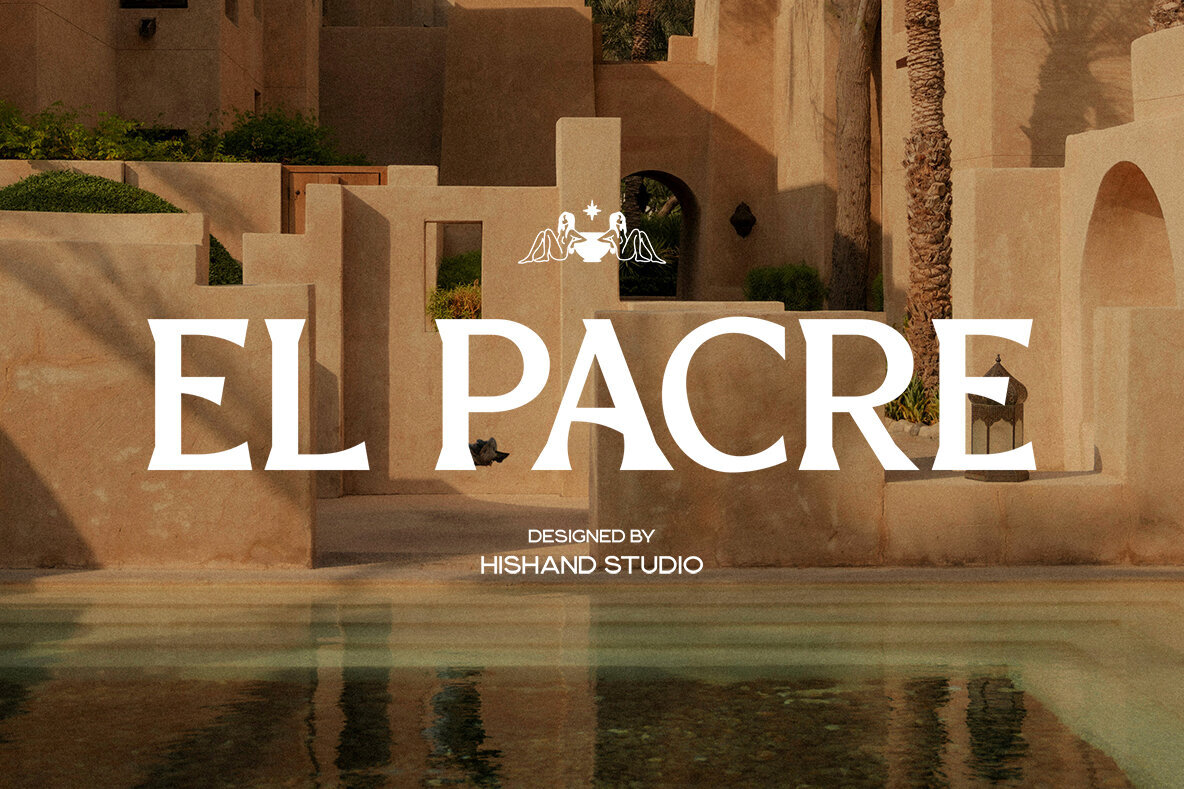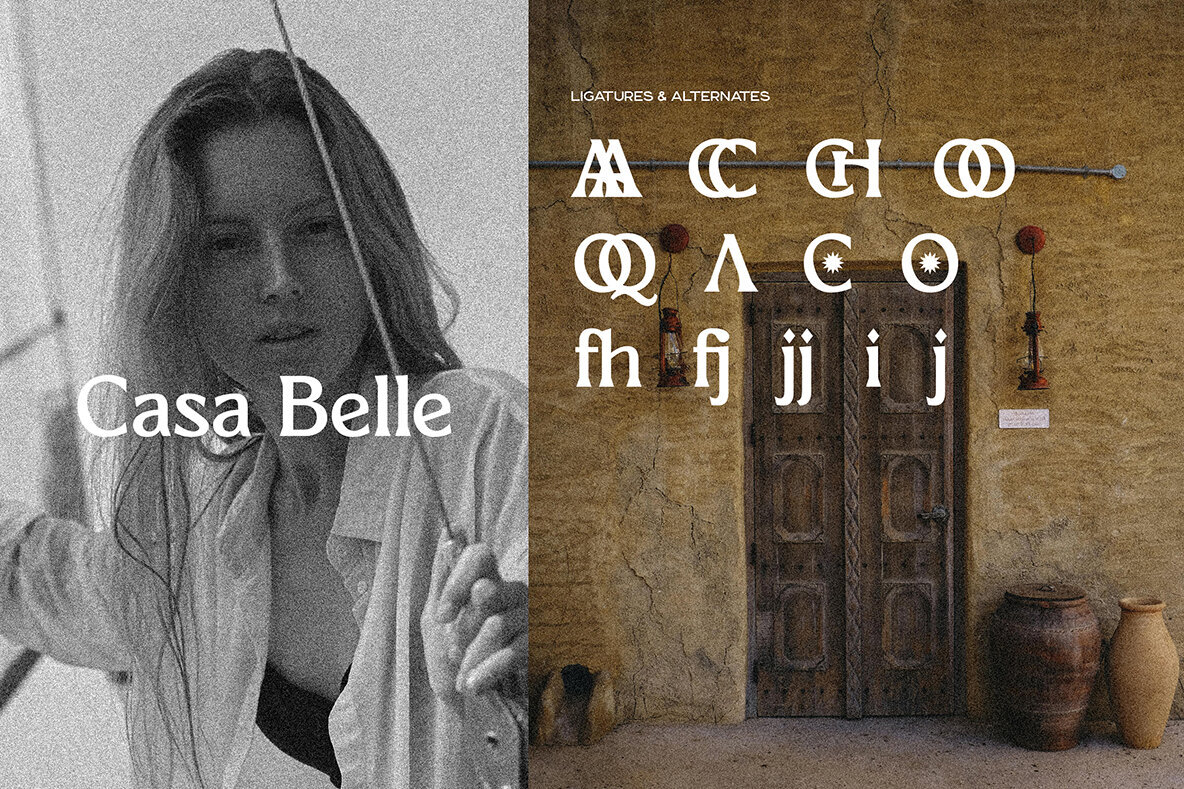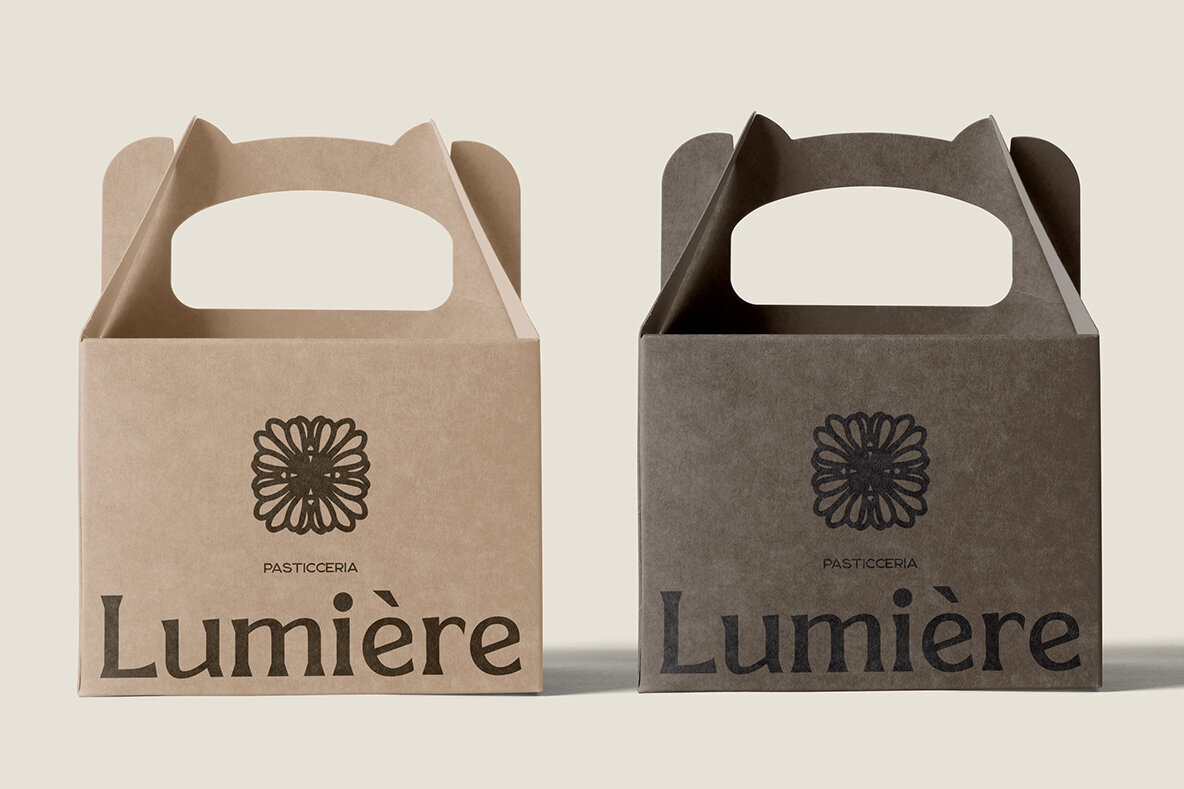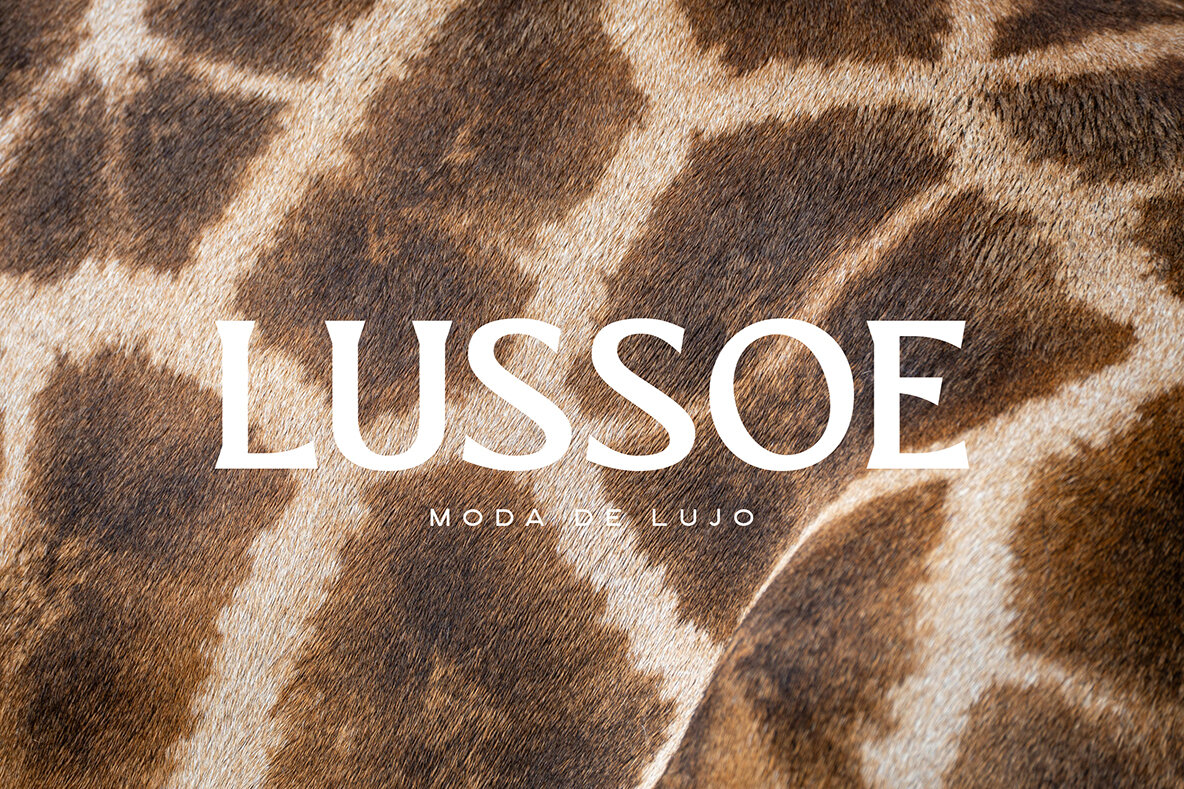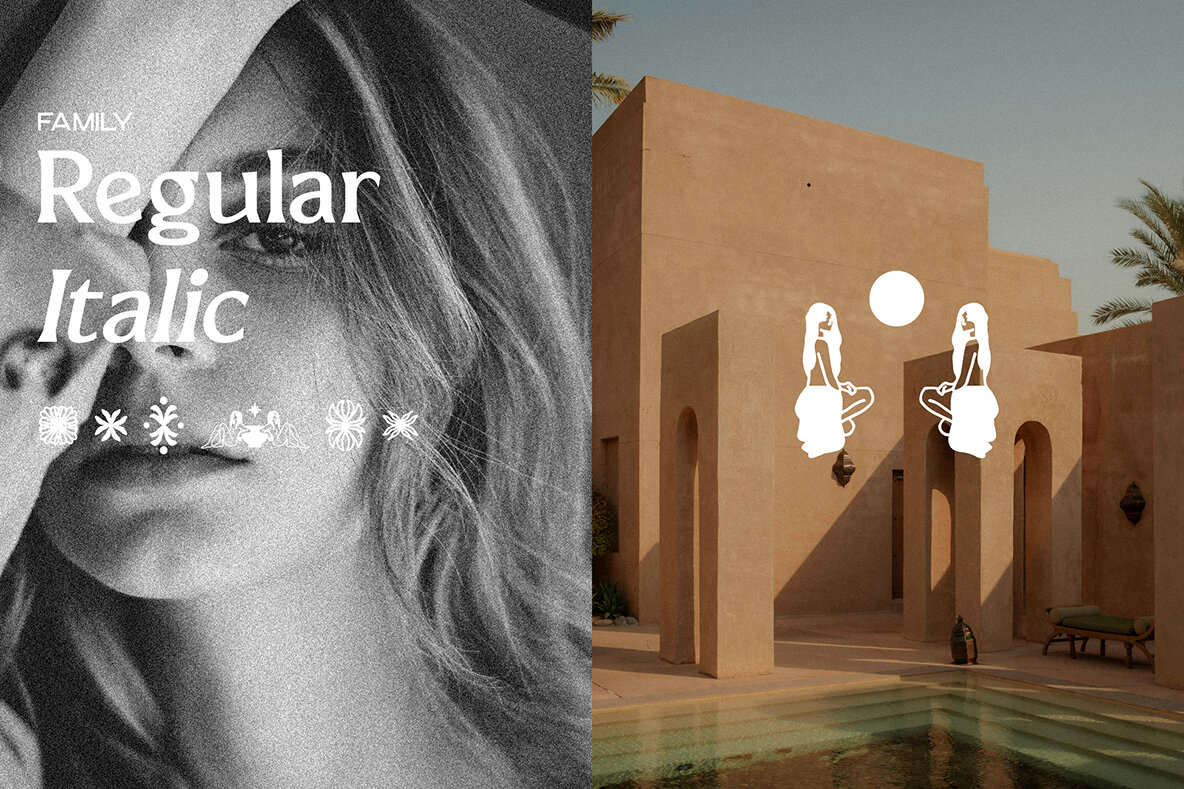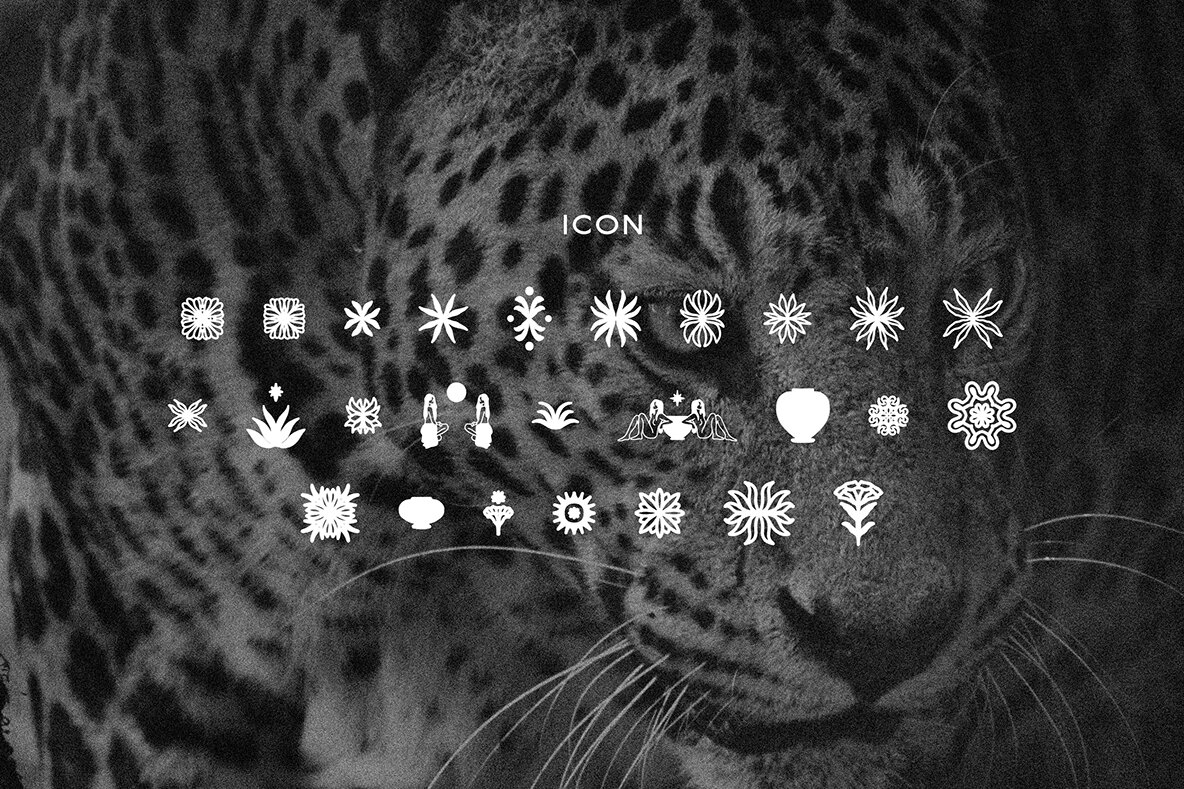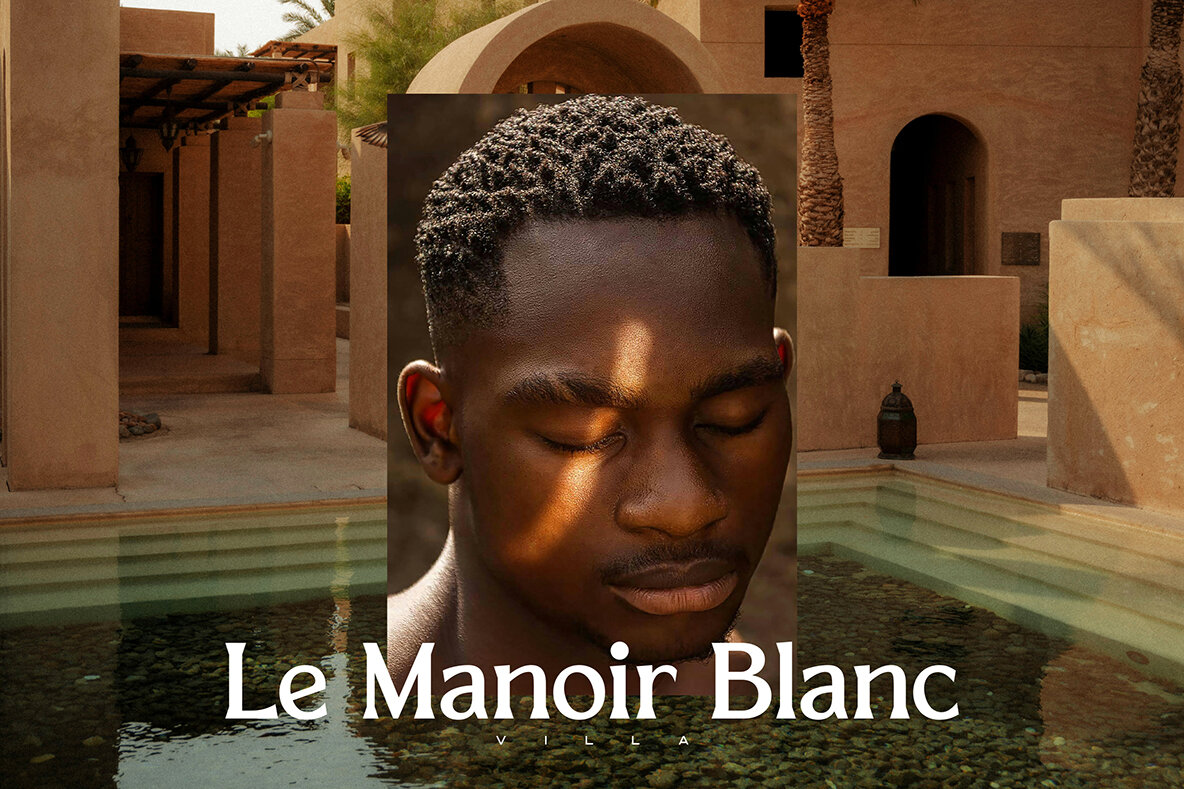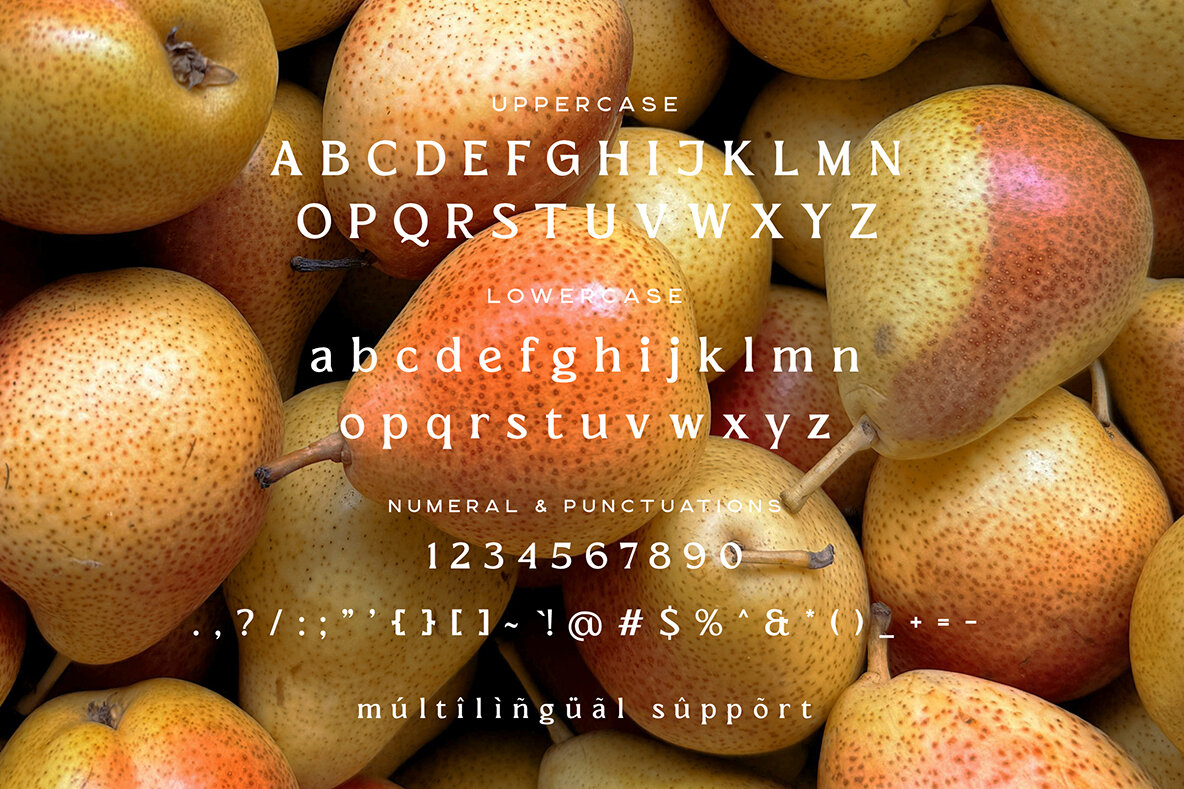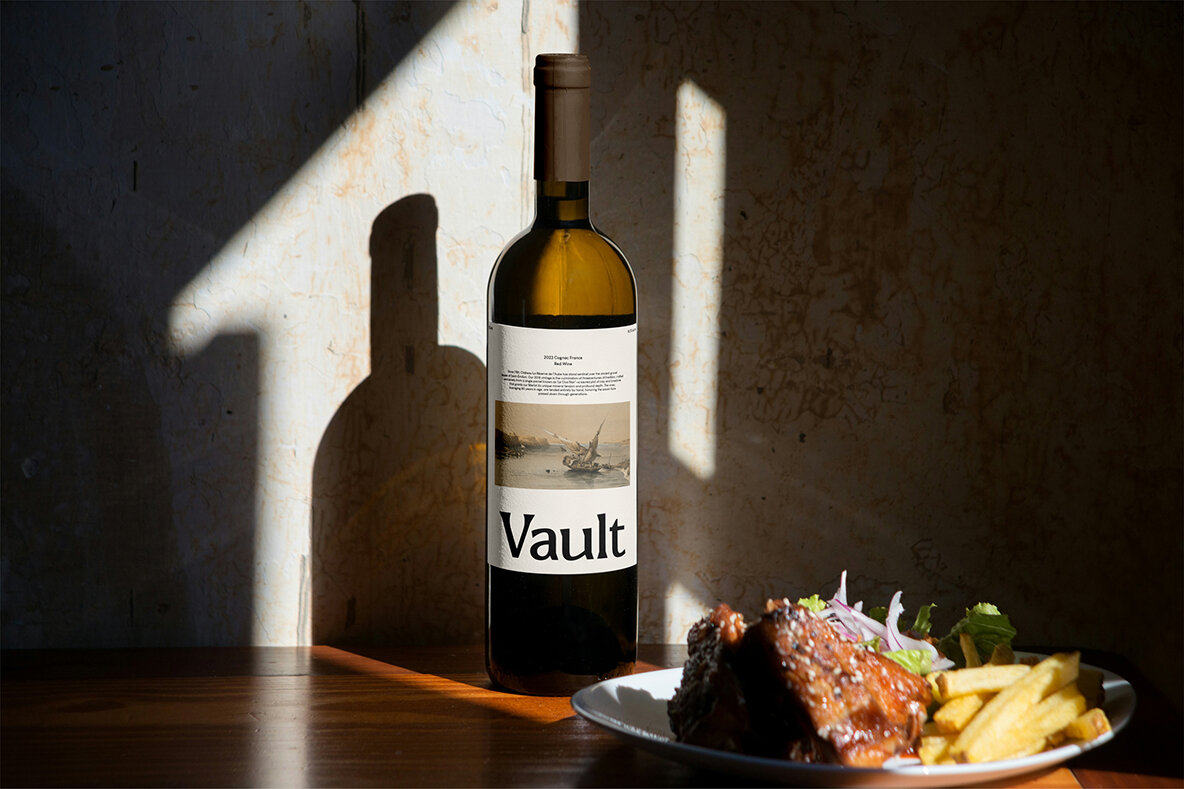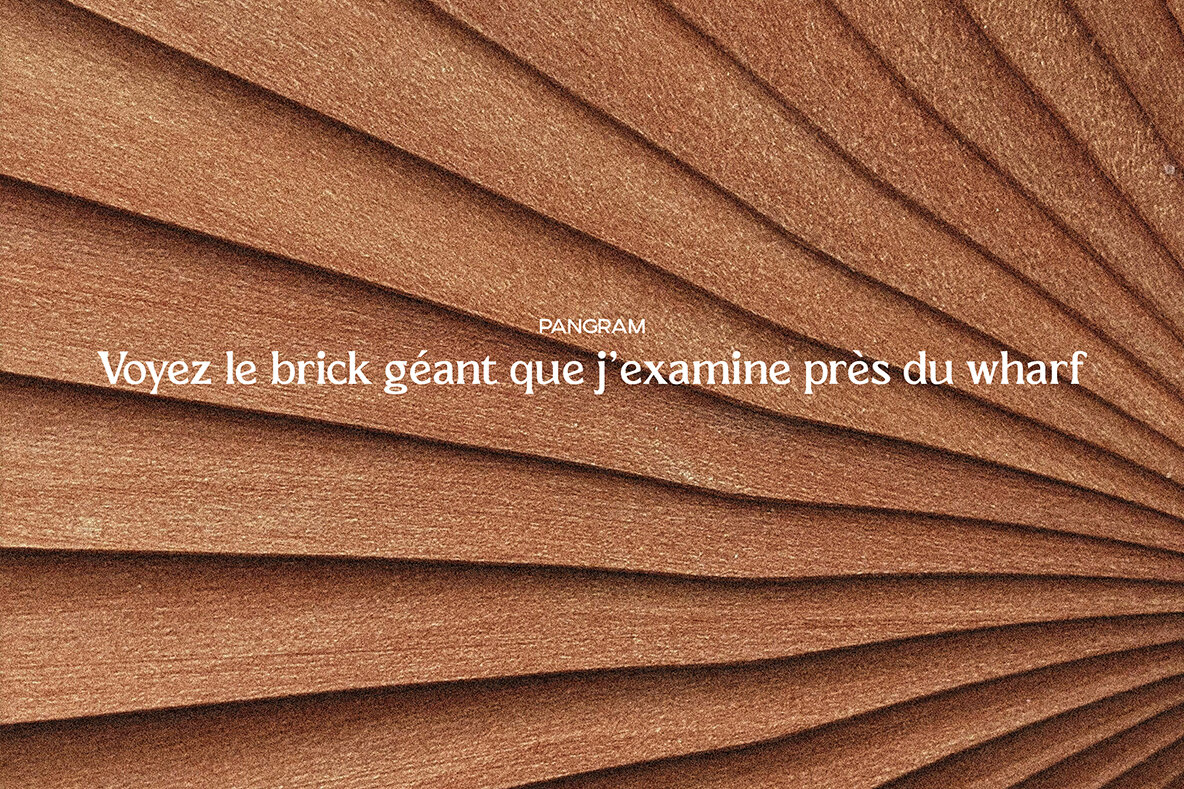
El Pacre Font
EL PACRE Regular
EL PACRE Italic
EL PACRE Icon
El Pacre is a distinguished display serif font characterized by luxury and timeless sophistication. With its bold letterforms and confident presence, this typeface makes a compelling statement in any project. The harmonious contrast between thick and thin strokes lends it a refined allure, while stylish elements offer a touch of modern artistry. Ideal for high-end logos, fashionable branding, packaging, and editorial layouts, El Pacre infuses your creations with an aura of exclusivity and elegance. This font shines whether employed for large-scale headlines or minimalist wordmarks. Its versatility ensures it adapts seamlessly to both classical and contemporary designs, serving as a crucial tool for designers intent on crafting audacious yet luxurious visuals. Choose El Pacre for its sophisticated character and visual impact that perfectly marries bold design with enduring beauty. Features:El Pacre: A Bold Display Serif for Timeless Elegance